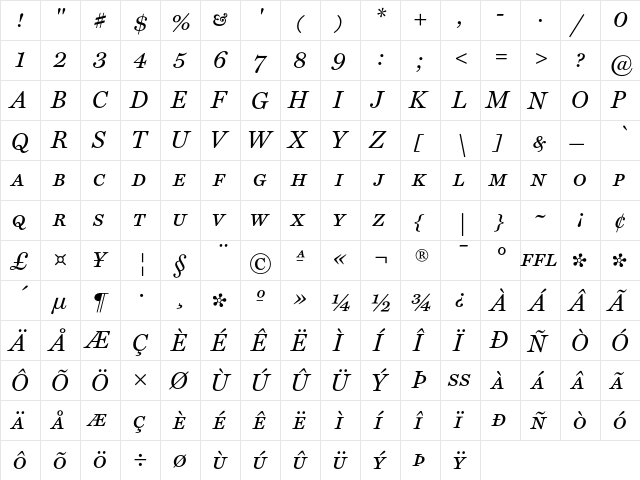
Miller Text SC Italic
Design Context for Miller Typeface
Miller is a composed and adaptable typeface that performs quietly and consistently across a wide range of design contexts. Its italic angle brings a sense of urgency and motion to the letterforms.
Pro Tip: Use Miller for emphasis, pull quotes, and subheadings where its slanted energy can add rhythm to the layout.